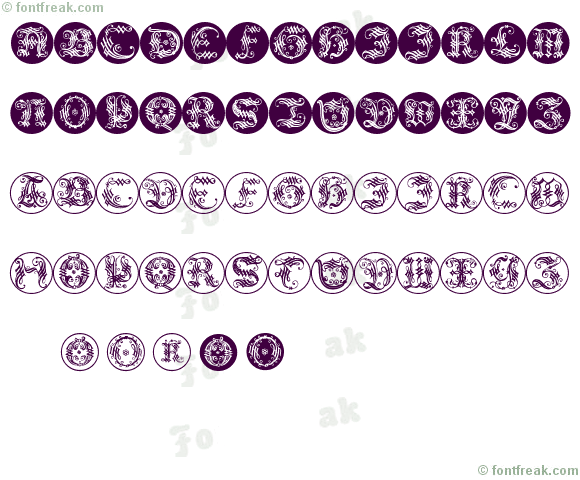
OrnamentalInitialButtons
OrnamentalInitial
OrnamentalInitialButtons by Manfred Klein is a unique decorative font that falls into the category of ornamental and display typefaces. This font features an intricate design, characterized by its bold stroke weight and high contrast, which adds a striking visual appeal. The letters are enclosed in circular forms, embellished with decorative elements that evoke a sense of elegance and historical charm, reminiscent of styles from the late 18th century. The spacing between the characters is thoughtfully designed, ensuring legibility while maintaining a cohesive look.
The OrnamentalInitialButtons font is particularly well-suited for a variety of creative projects. It is perfect for wedding invitations, where its ornate style can enhance the romantic and celebratory atmosphere. Additionally, this font can elevate movie posters, providing a distinctive flair that captures the audience's attention. Restaurant menus can also benefit from its decorative touch, making the dining experience feel more upscale and inviting. Graphic designers and content creators will find this font useful for branding materials, where unique typography can help a business stand out in a crowded marketplace.
What sets the OrnamentalInitialButtons font apart is its blend of traditional elegance with a modern usability, making it a valuable addition to any designer's toolkit. Its unique personality can transform ordinary text into a captivating visual statement, ensuring that your projects leave a lasting impression.